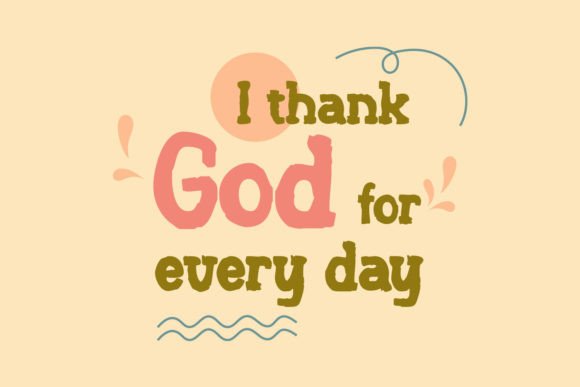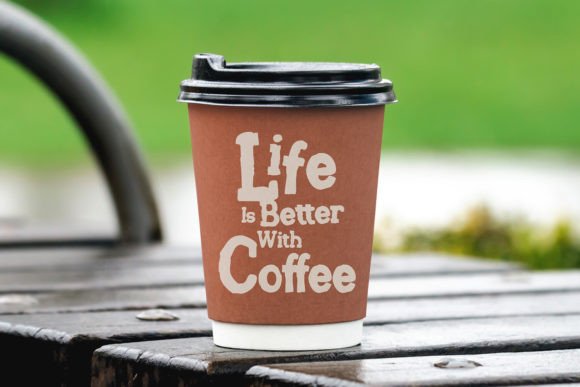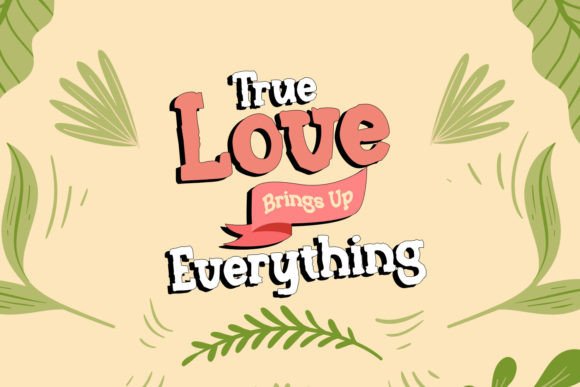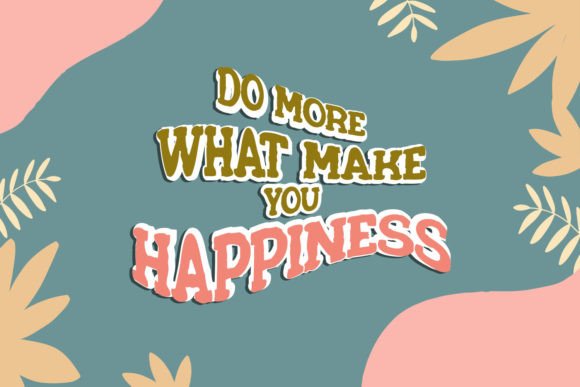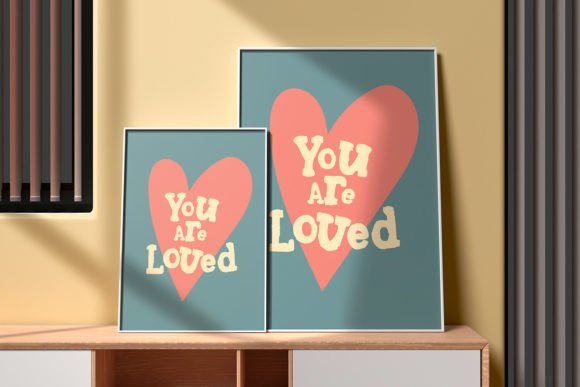
Introduction to Gunwale Font
Have you ever stared at a blank canvas, struggling to find the perfect font to bring your creative project to life? I know I have. It’s a moment of pure frustration, when every font seems too generic, too boring, or just plain wrong. But then, you stumble upon a hidden gem – a font that speaks to your design sensibilities and elevates your project to new heights. For designers, finding the right font can be the difference between a good design and a great one. That’s where the Gunwale Font comes in – a captivating display font that infuses your designs with a sense of playfulness and charm.
Whether you’re working on a high-quality design project or simply looking for a new design resource to add to your arsenal, the Gunwale Font is sure to impress. With its unique design elements and irregular outline, this font adds a touch of whimsy to any project, making it perfect for designers who want to stand out from the crowd. And the best part? You can download the Gunwale Font for free, complete with a transparent background, making it easy to use in any design scenario.
Key Features of Gunwale Font
- Unique Hand-Drawn Design: Gunwale Font offers a distinctive, hand-drawn aesthetic perfect for creative projects requiring a high-quality, custom look.
Honest Review: Gunwale Font
I recently had the chance to work with Gunwale Font for a creative project, and I was pleasantly surprised by the high quality of this design resource. As a designer, I’m always on the lookout for fonts that can elevate my work, and Gunwale Font definitely delivers.
Here are some things that work well with Gunwale Font: ✨
- Unique and modern design aesthetic
- High-quality vector graphics
While Gunwale Font is an excellent addition to any designer’s toolkit, there are a few limitations to consider: ⚠️
Overall, I’m impressed with Gunwale Font and would definitely recommend it to designers looking for a high-quality, modern font. The transparent background and free download option make it a great resource for creative projects.
Tips for Getting the Most Out of Gunwale Font
For the best results, use Gunwale Font in combination with other high-quality design resources. Experiment with different font sizes, colors, and styles to create a unique and eye-catching design. You can also use the font in a variety of creative projects, such as logos, graphics, and presentations.
Gunwale Font is perfect for creating professional-looking logos, graphics, and presentations. It’s also great for use in creative projects, such as infographics, social media graphics, and brochures. The font’s high-quality design and transparent background feature make it a valuable resource for designers and non-designers alike.